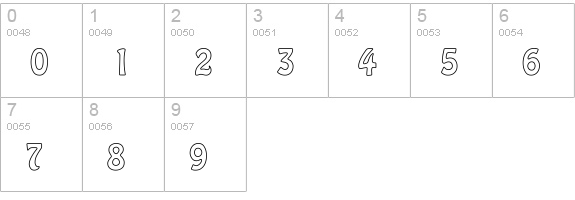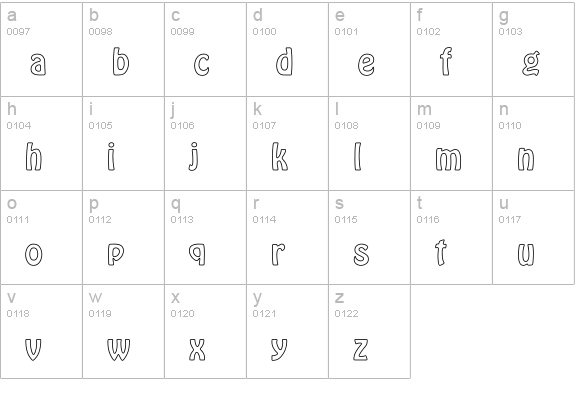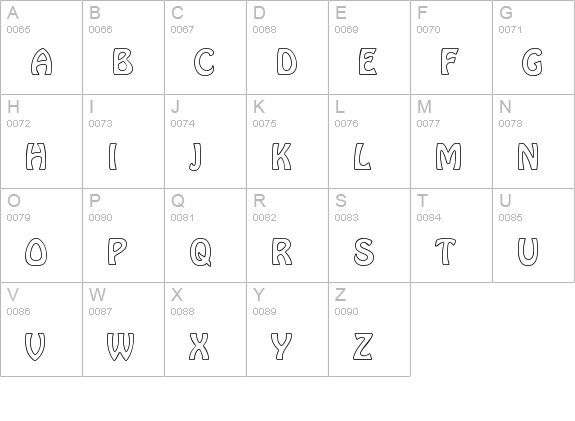
Vagabond Hollow font is a captivating and versatile typeface that exudes an air of wanderlust and boundless creativity. Its unique and handcrafted design embodies the spirit of adventure, making it perfect for a wide range of projects, from logo designs to branding, packaging, and beyond. With its organic strokes and slightly uneven edges, Vagabond Hollow font adds a touch of authenticity and personality to any design. It effortlessly captures the essence of nature and the outdoors, evoking a sense of exploration and freedom. Whether you are working on a travel blog, a camping-themed event, or a rustic-themed wedding invitation, this font will infuse your design with a hint of wildness and charm. Vagabond Hollow font is not only visually appealing but also highly legible, ensuring that your message is communicated with clarity and style. Its versatility allows it to be used in both bold headlines and elegant body text, making it suitable for both digital and print applications. What sets Vagabond Hollow font apart is that it is freely available to download at FontsMarket.com. This means that you can access this stunning font without any cost, making it a valuable asset for designers, entrepreneurs, and creatives on a budget. Whether you are a seasoned professional or a budding amateur, this font provides you with the opportunity to elevate your designs without breaking the bank. So why wait? Dive into the world of Vagabond Hollow font and unleash your imagination. Let its free-spirited nature inspire you to create captivating designs that leave a lasting impression. Download it today at FontsMarket.com and embark on a typographic journey that is as exciting as it is accessible.